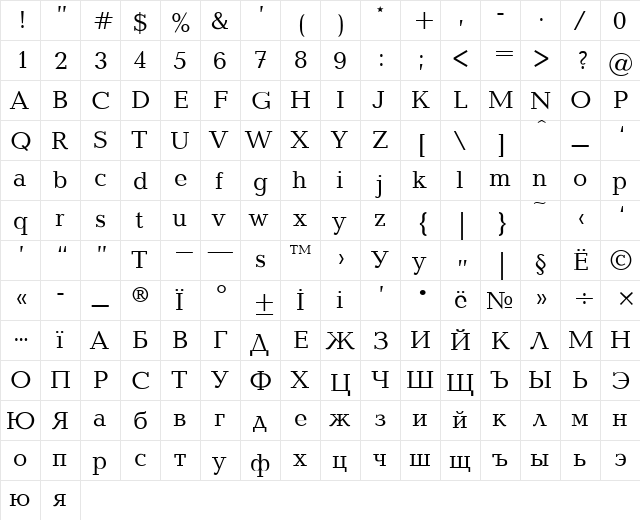
Baltica Plain
Design Context for Baltica Typeface
Baltica is a composed and adaptable typeface that performs quietly and consistently across a wide range of design contexts.